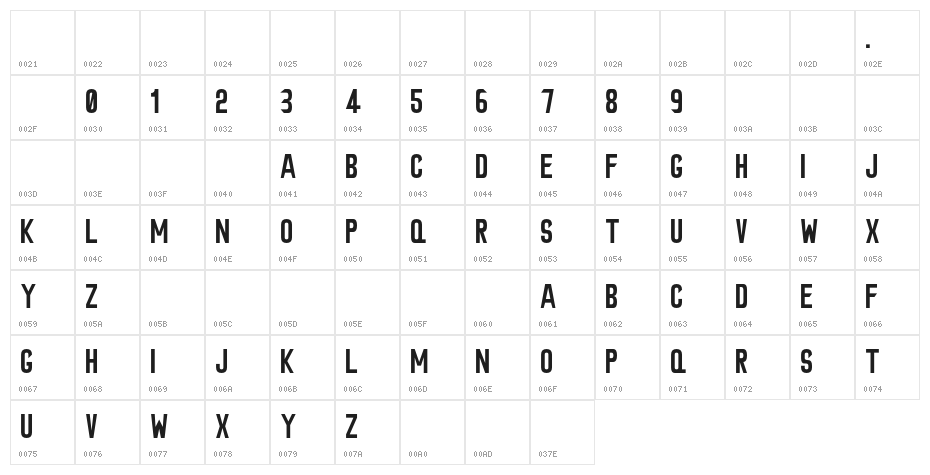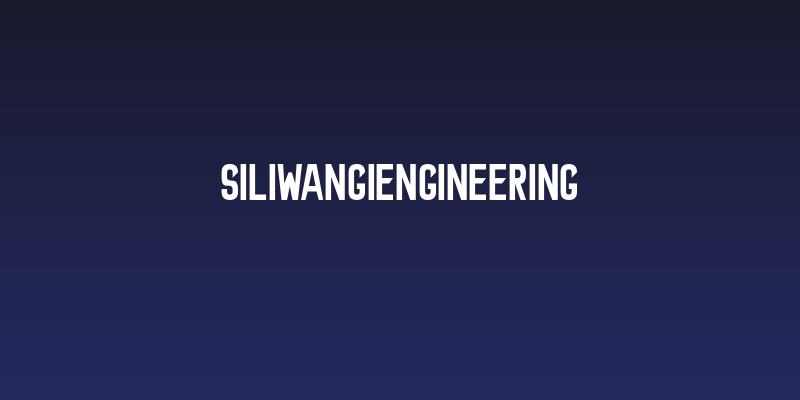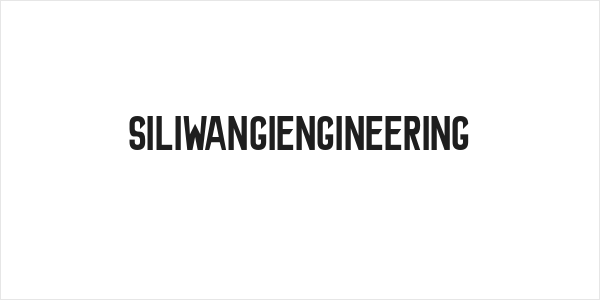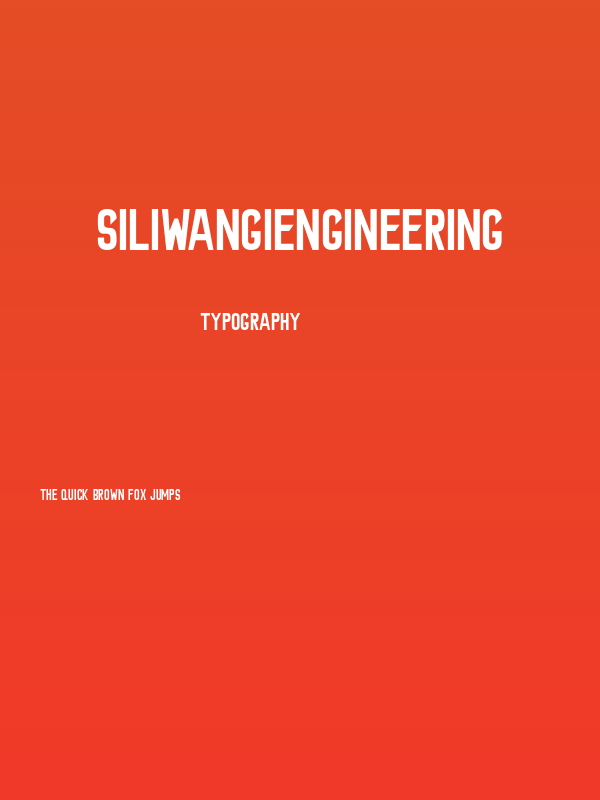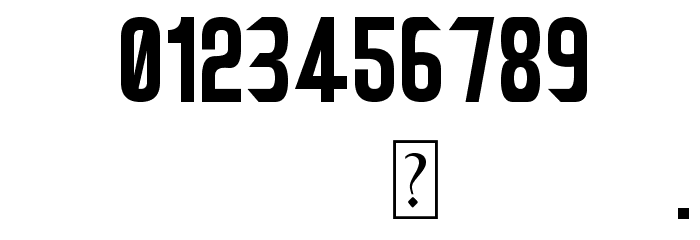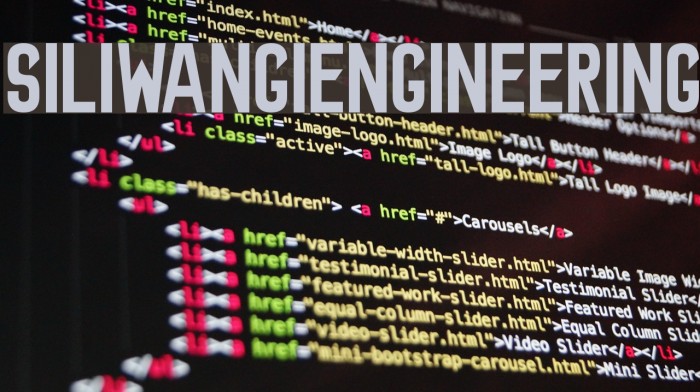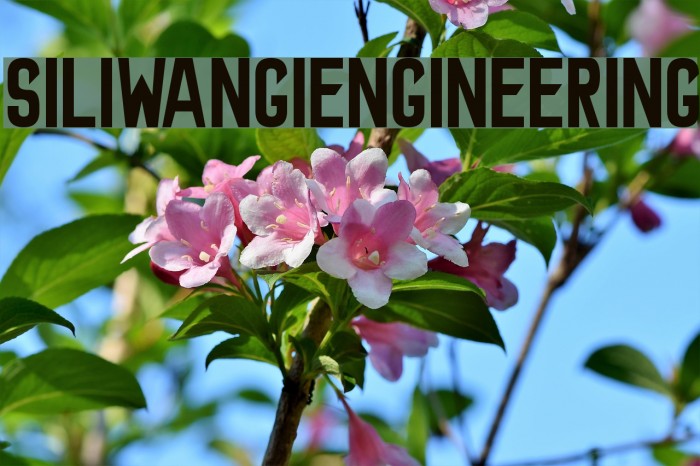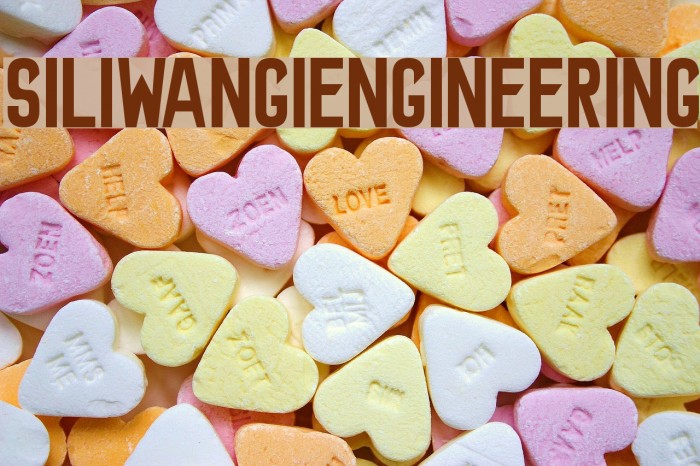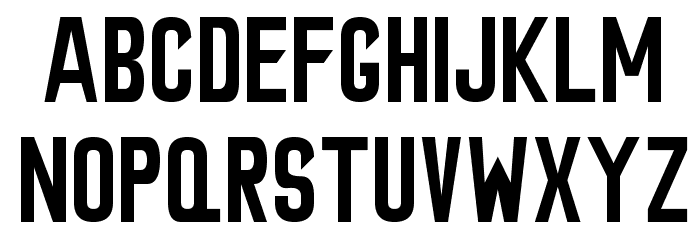
SiliwangiEngineering Font
SiliwangiEngineering Description
This font presents a bold and impactful design, characterized by its strong geometric shapes and uniform stroke width. The uppercase letters are tall and commanding, with a slight narrowing towards the top, giving them a modern and sleek appearance. The numbers are equally bold, maintaining the same height as the uppercase letters, ensuring consistency across the typeface. The special characters are designed to match the overall aesthetic, with clean lines and a contemporary feel. This font is ideal for making a statement, whether in headlines, posters, or branding materials.
| Proposed Projects | Ideal for headlines, posters, branding, and any project requiring a strong visual impact. |